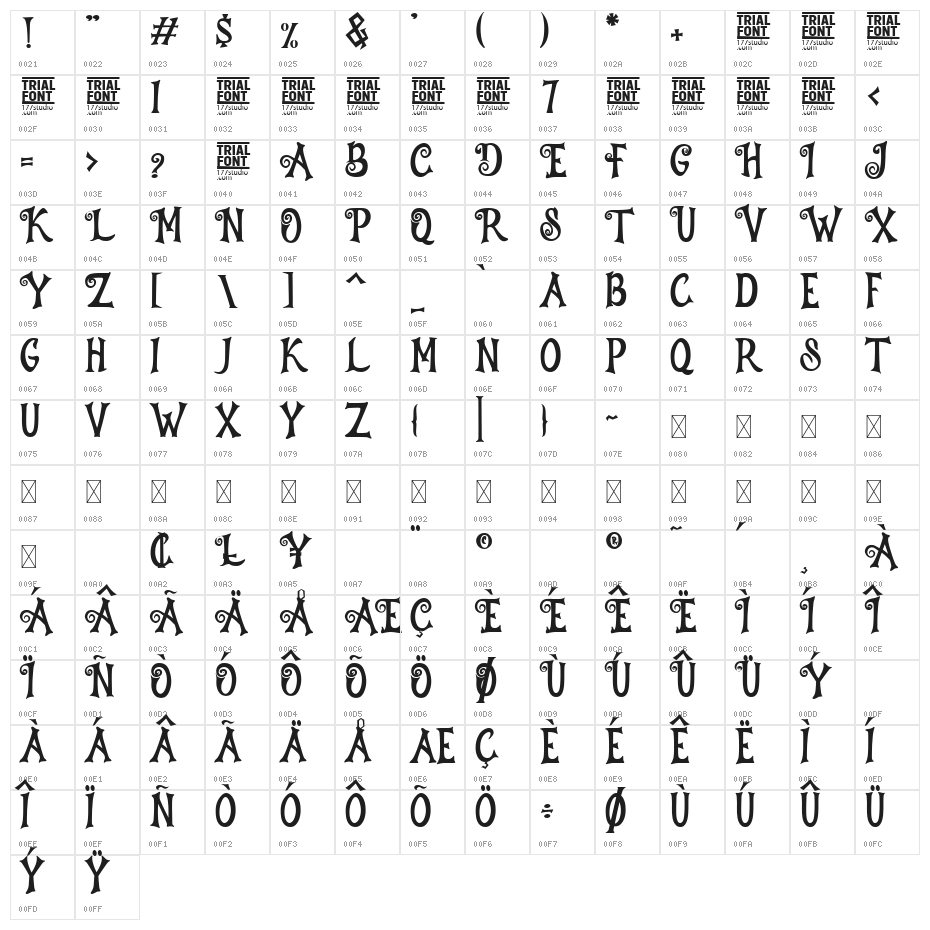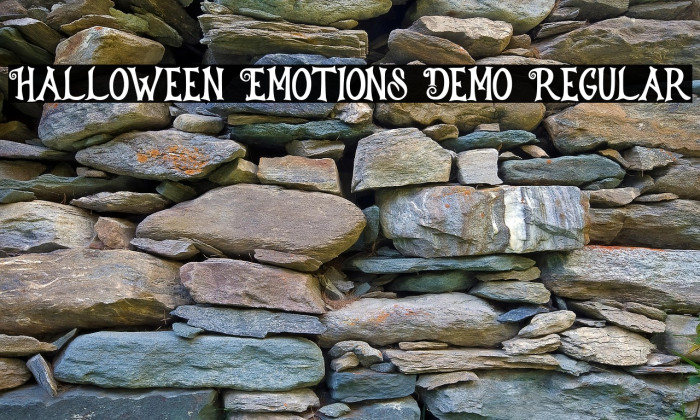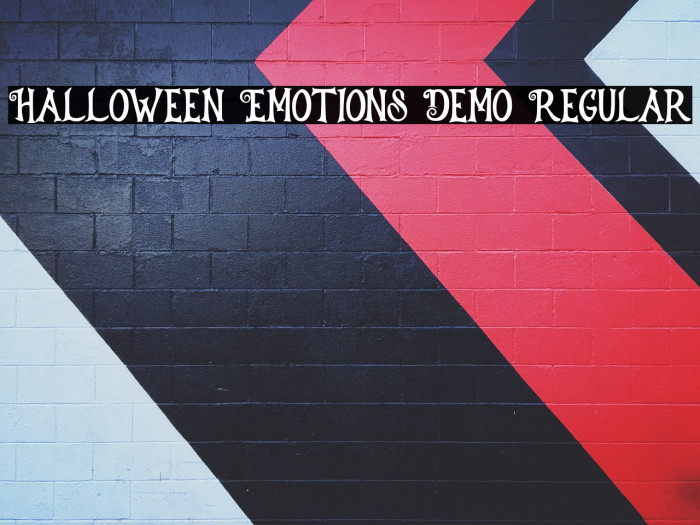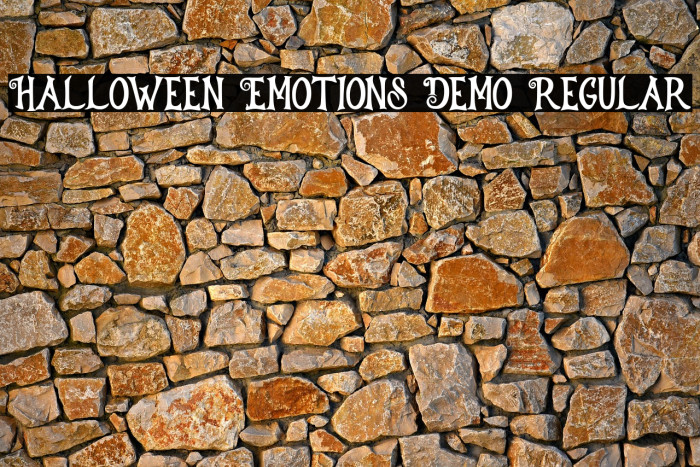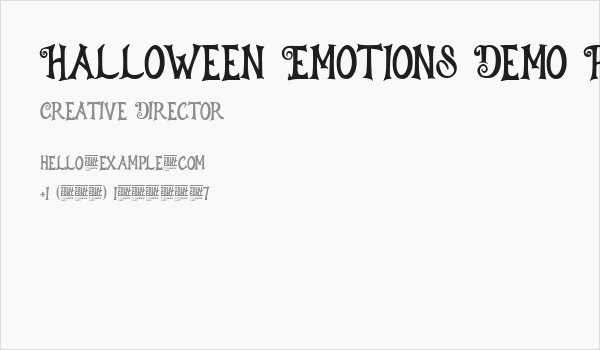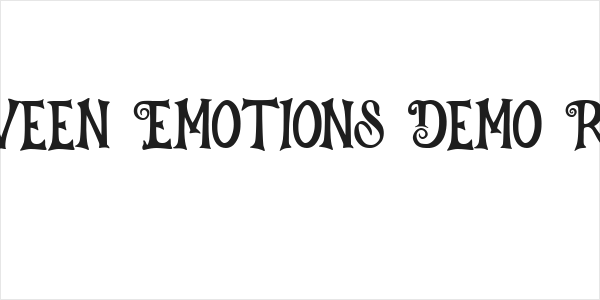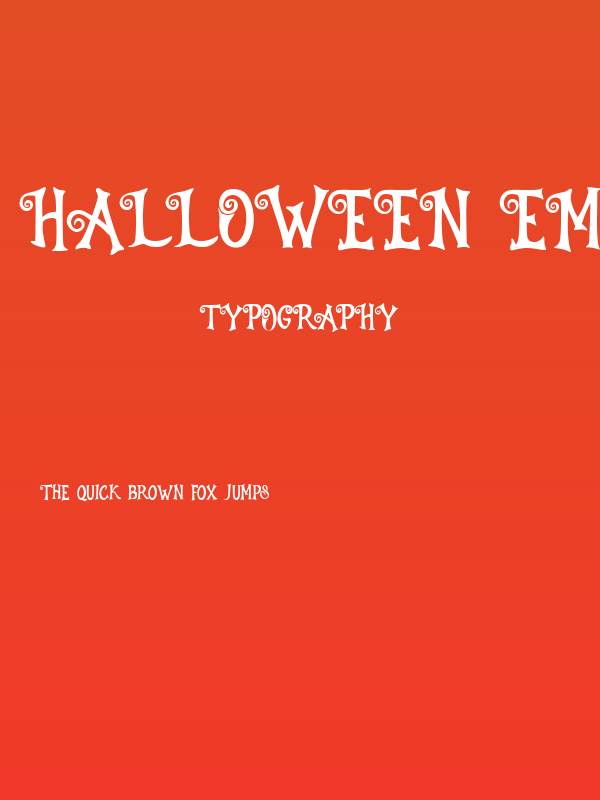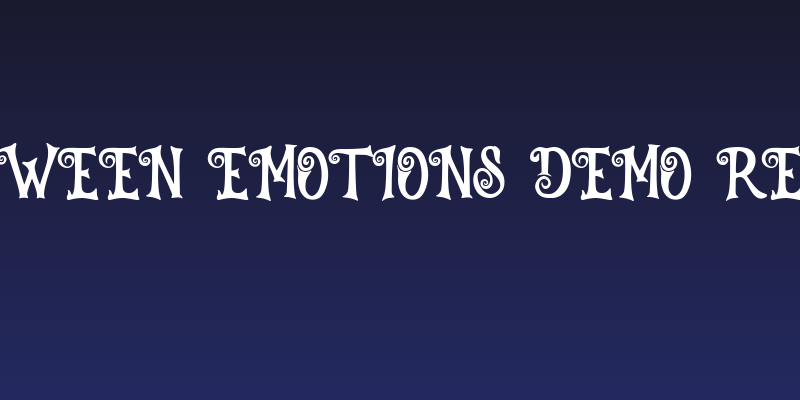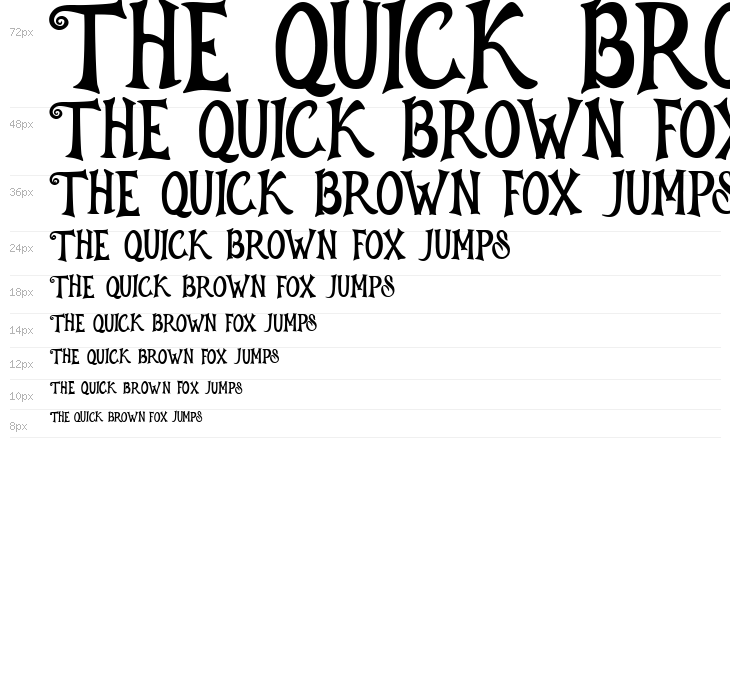
Halloween Emotions Demo Regular Font
Halloween Emotions Demo Regular Description
This font features a whimsical and playful design, characterized by its decorative and curly elements that evoke a sense of fun and creativity. The uppercase letters are bold and ornate, with unique swirls and curves that add a touch of fantasy. The lowercase letters maintain a consistent style, complementing the uppercase with their own flair. The numbers and special characters are equally stylized, ensuring a cohesive look across all elements. This font is perfect for capturing attention and adding a festive or magical touch to any project.
| Proposed Projects | Ideal for Halloween-themed designs, party invitations, children's books, and festive banners. |